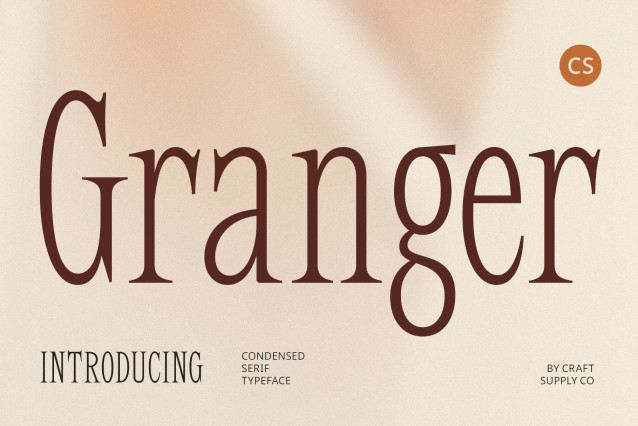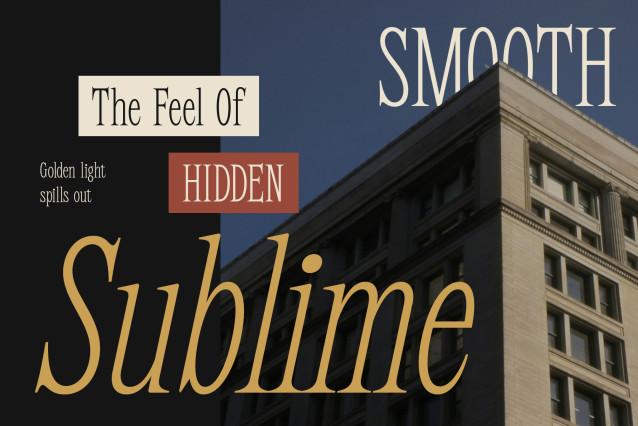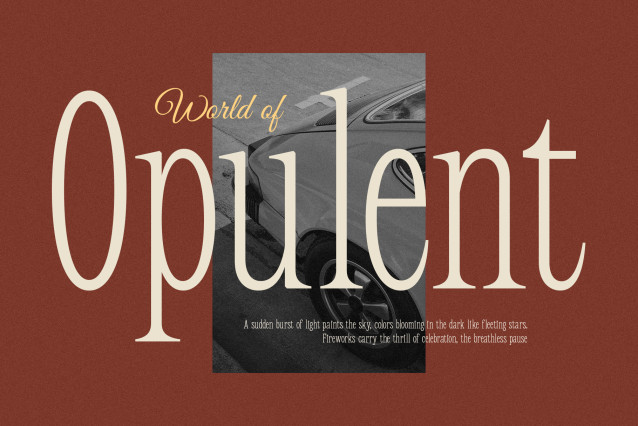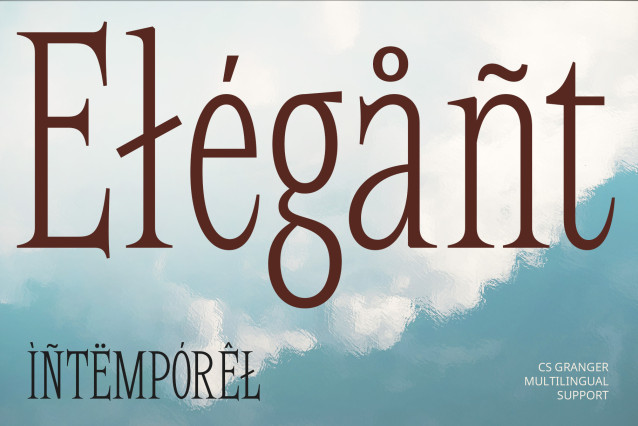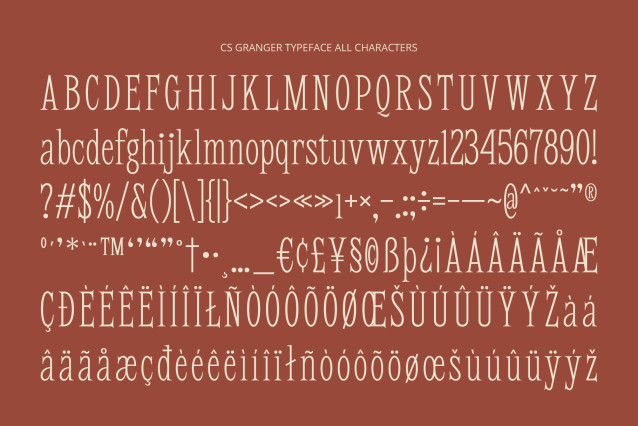
CS Granger Font
CS Granger Font is a modern serif font that features a condensed, clean, and contemporary structure—perfect for delivering information in a slim and space-efficient form. Its tall letterforms and refined spacing allow for high readability, even in limited layout space, making it ideal for editorial headlines, packaging, or refined typographic systems.